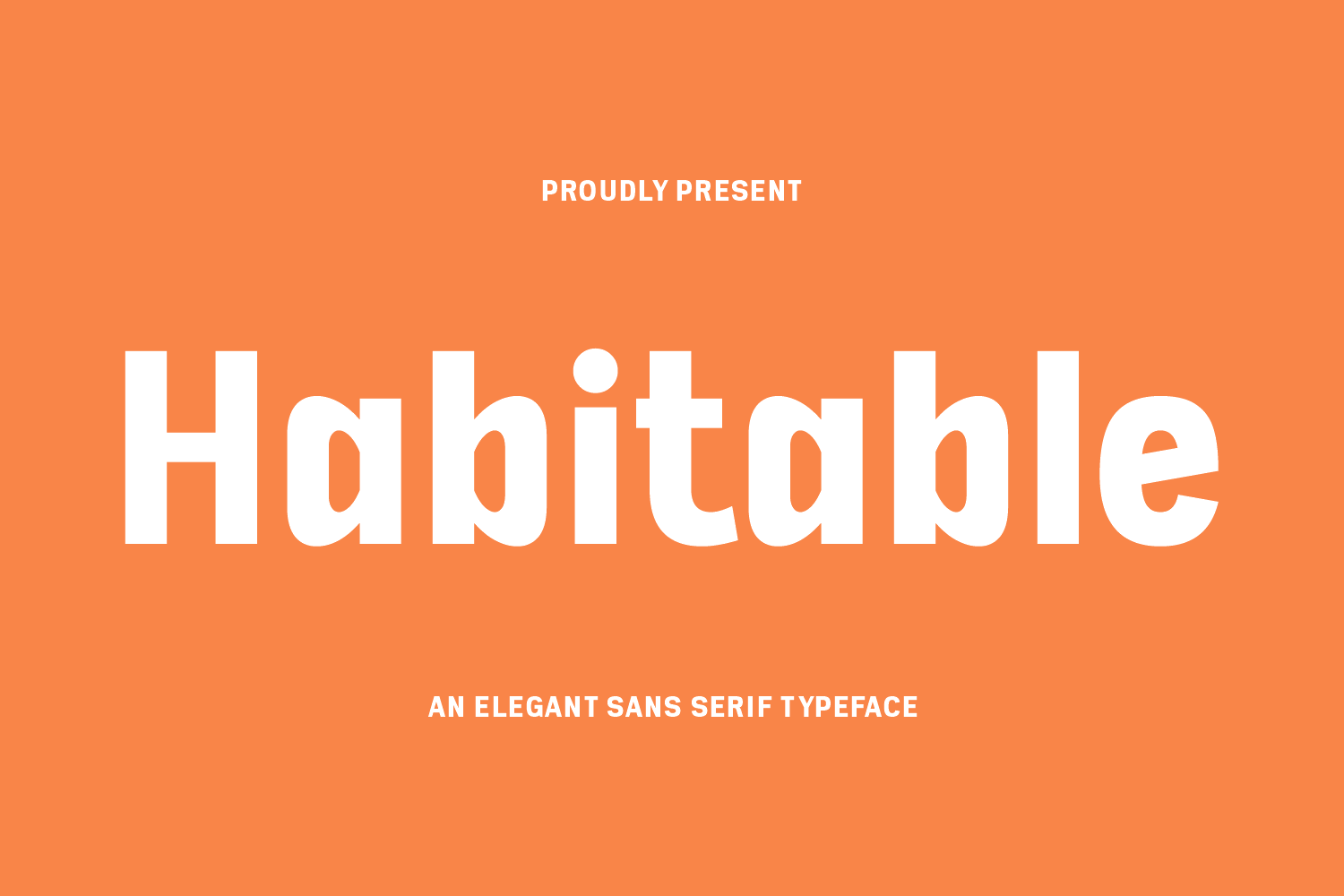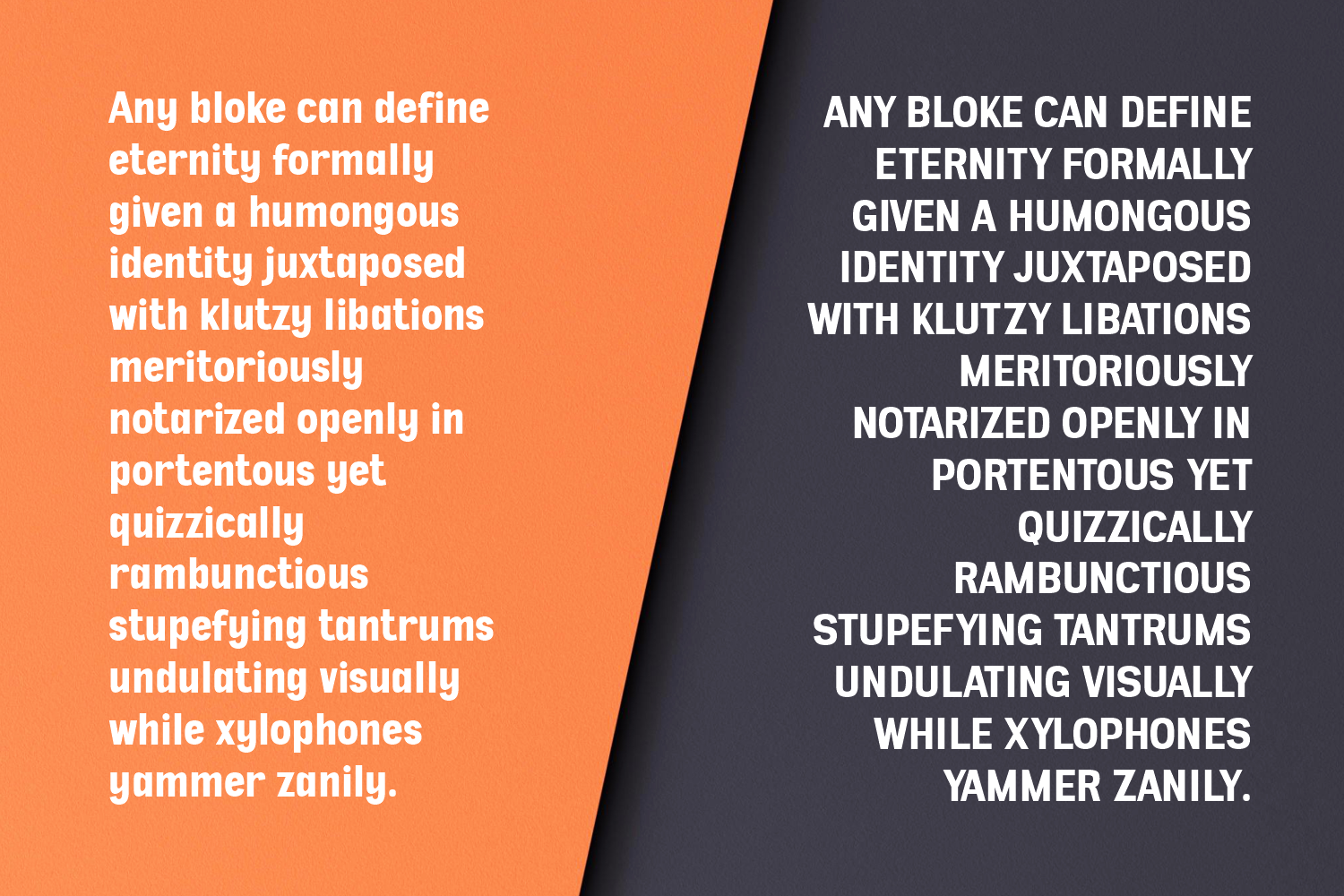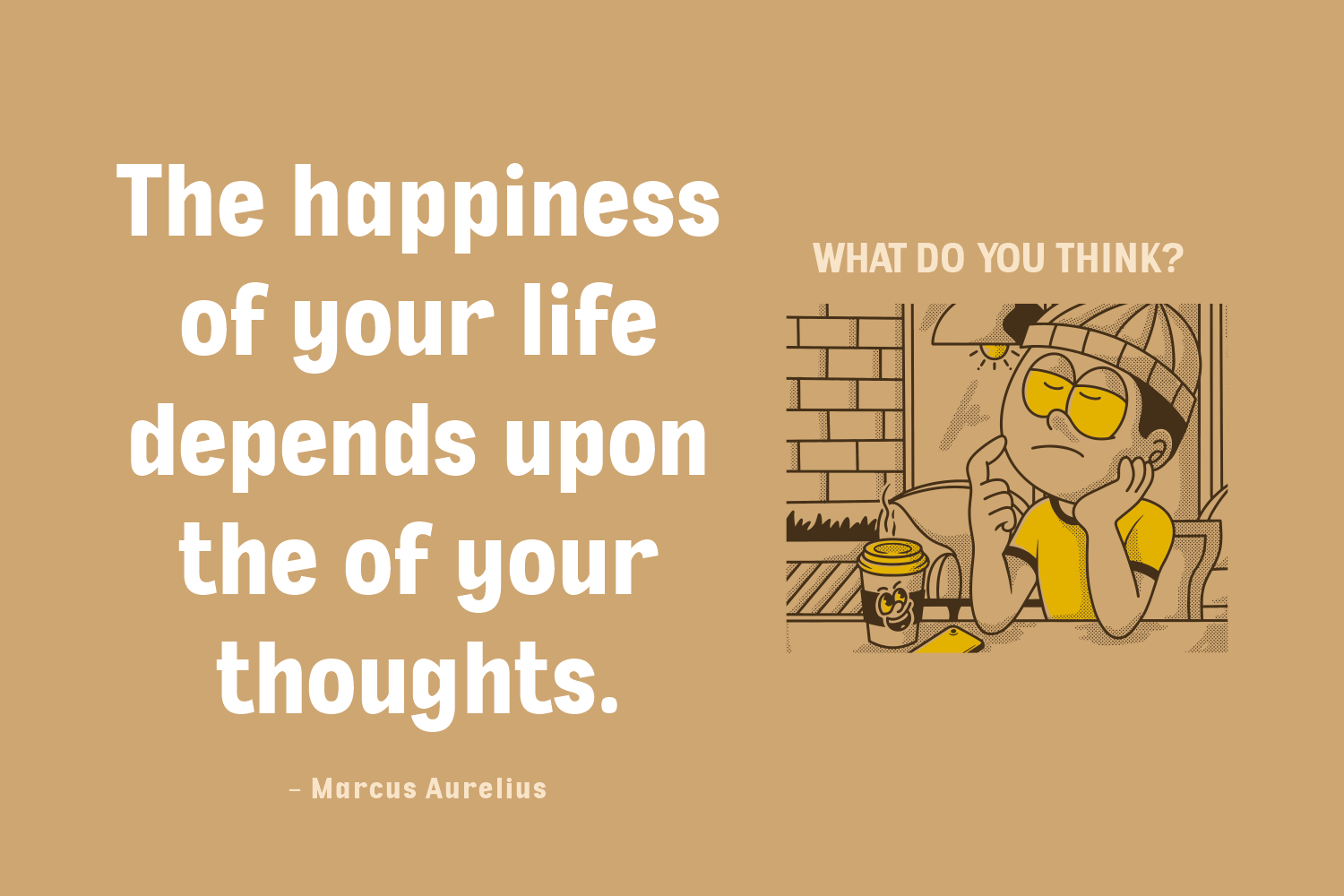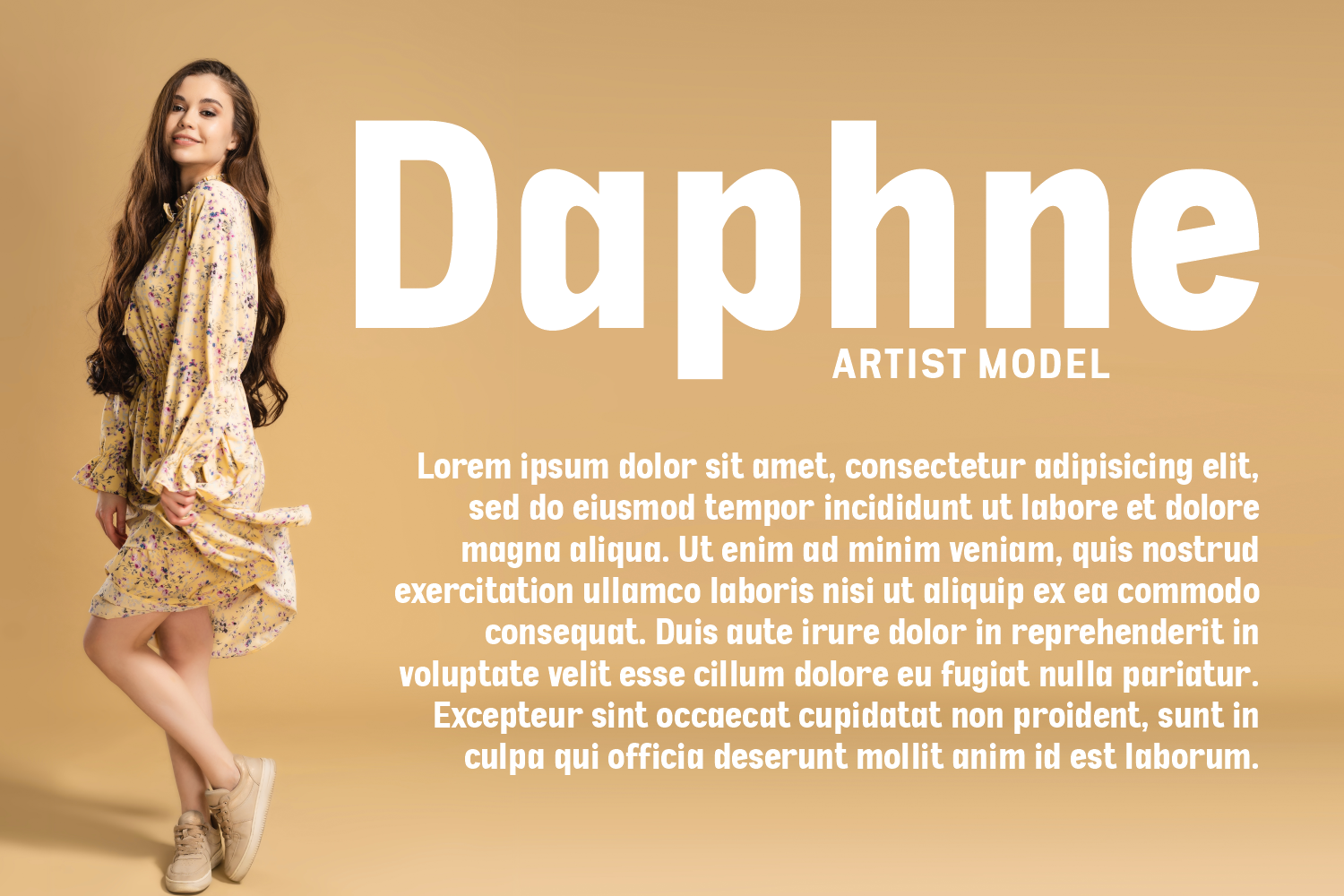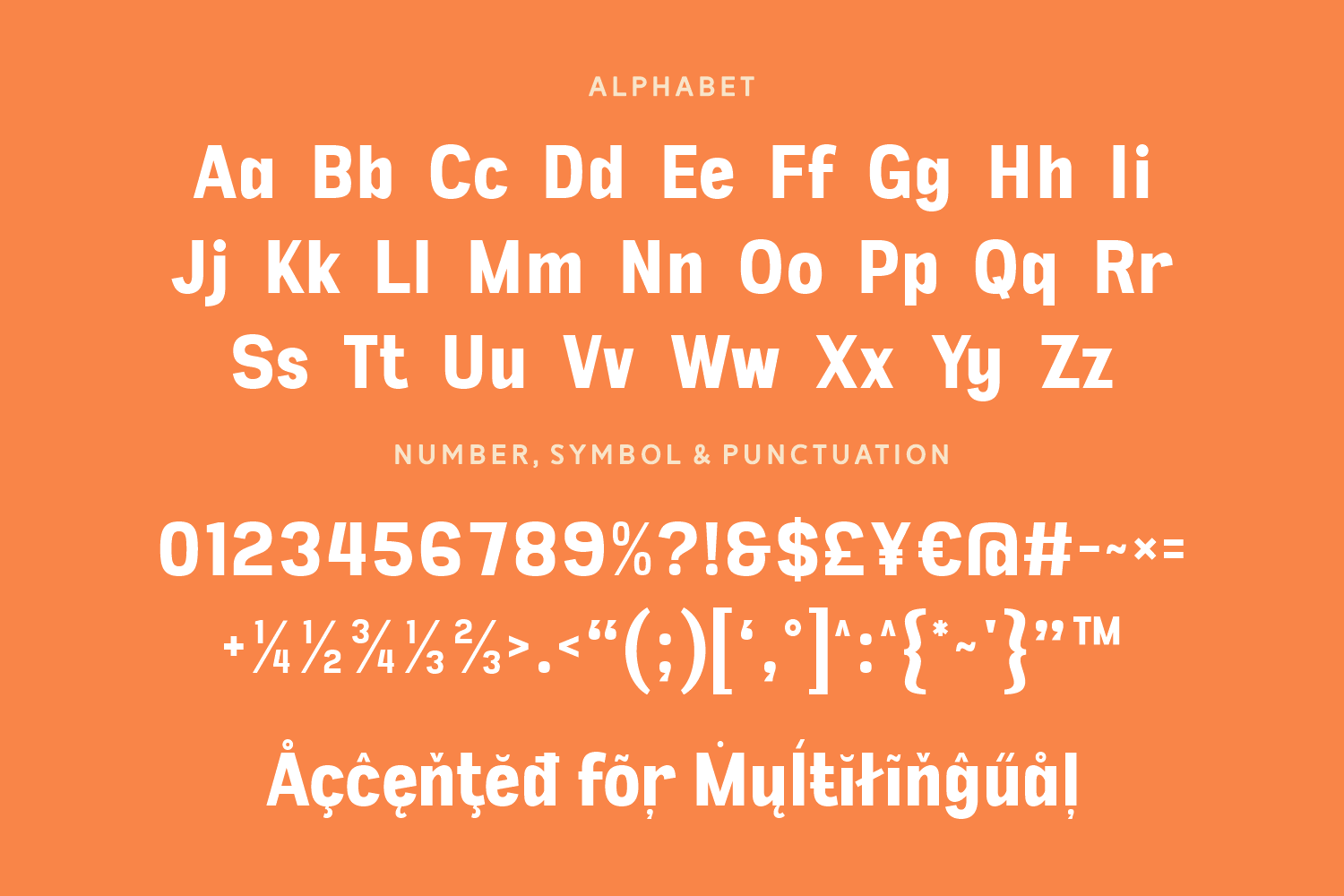
Habitable is a bold, friendly sans serif typeface with soft corners and a warm personality. It’s perfect for brands looking to communicate approachability and simplicity. Whether used in packaging, headlines, or children’s products, Habitable brings instant charm and readability. Its distinctive shapes help your message stand out without sacrificing clarity or warmth.